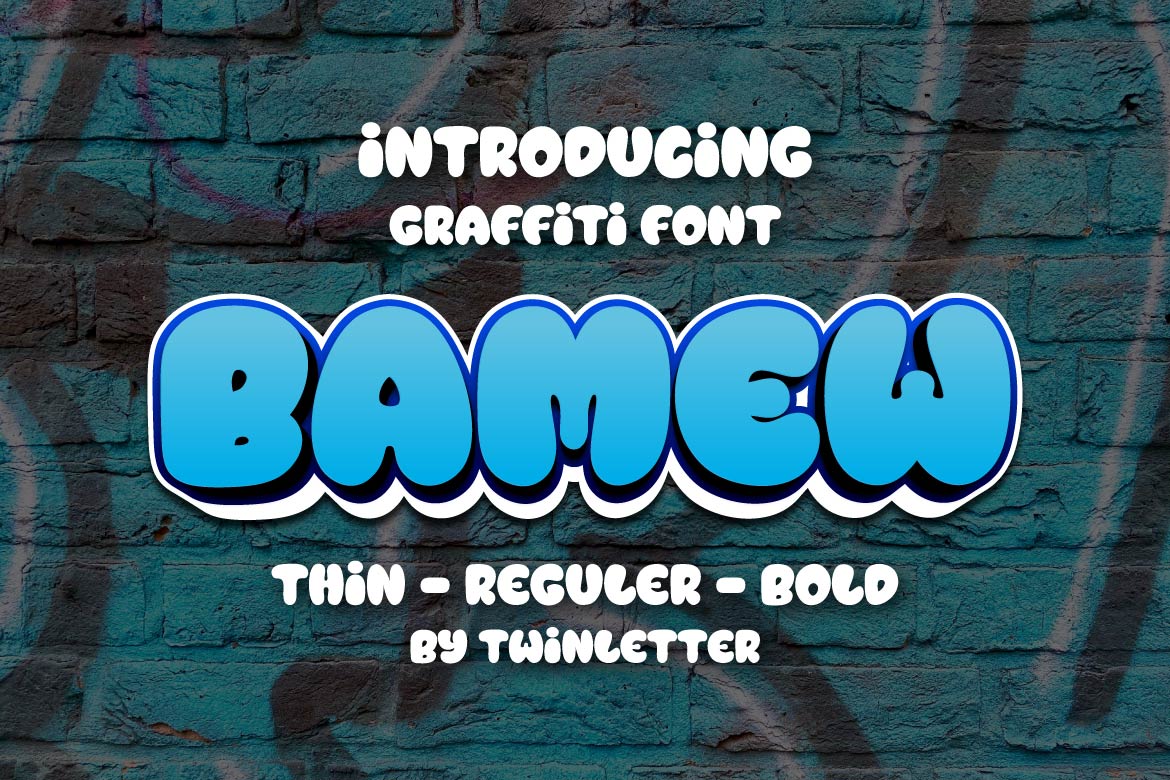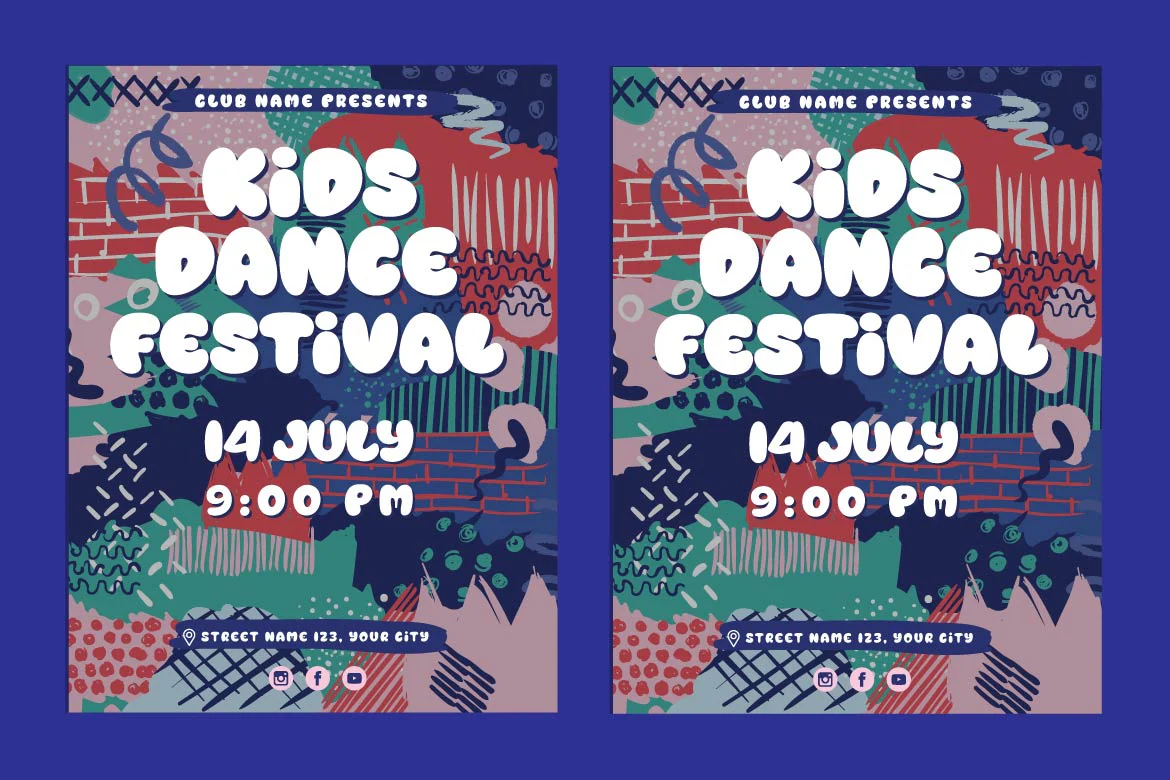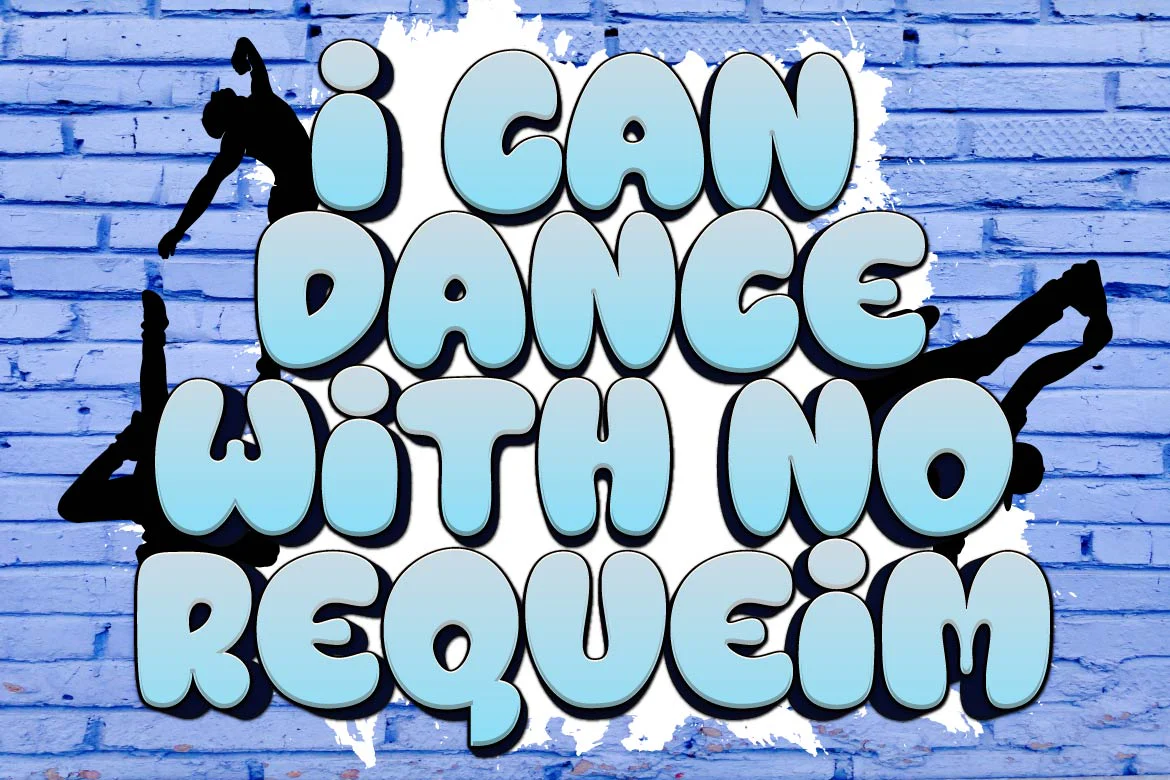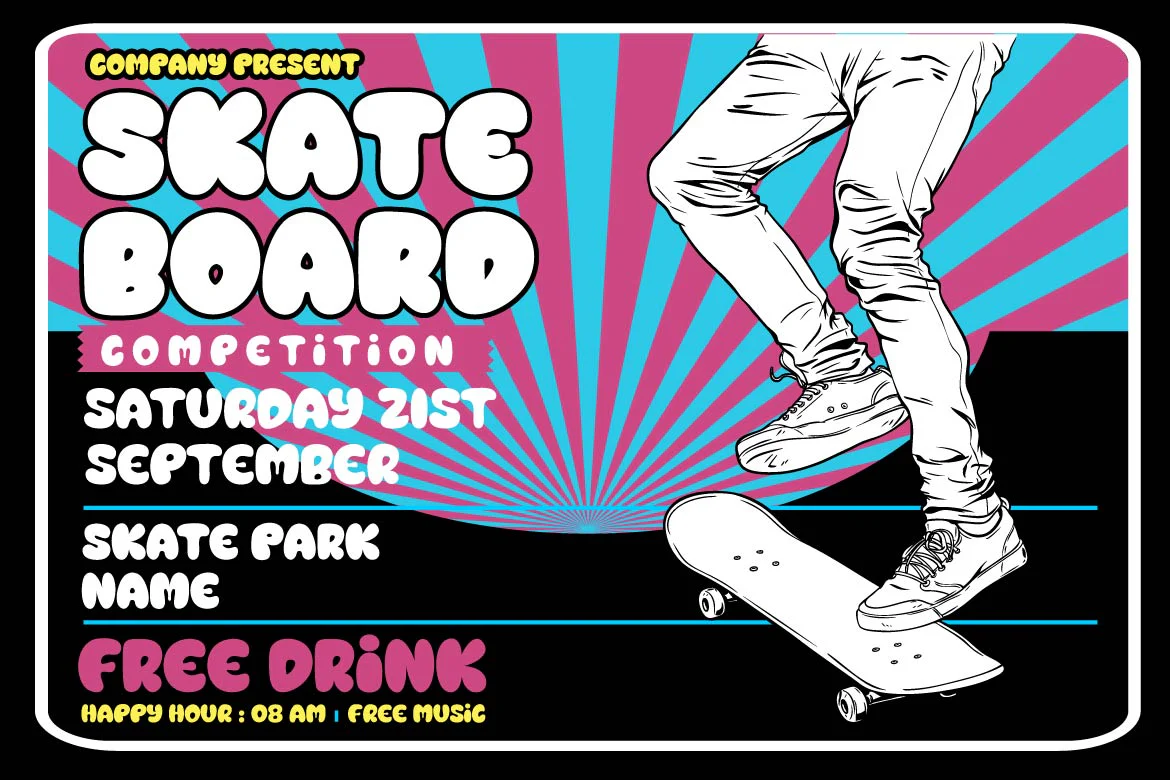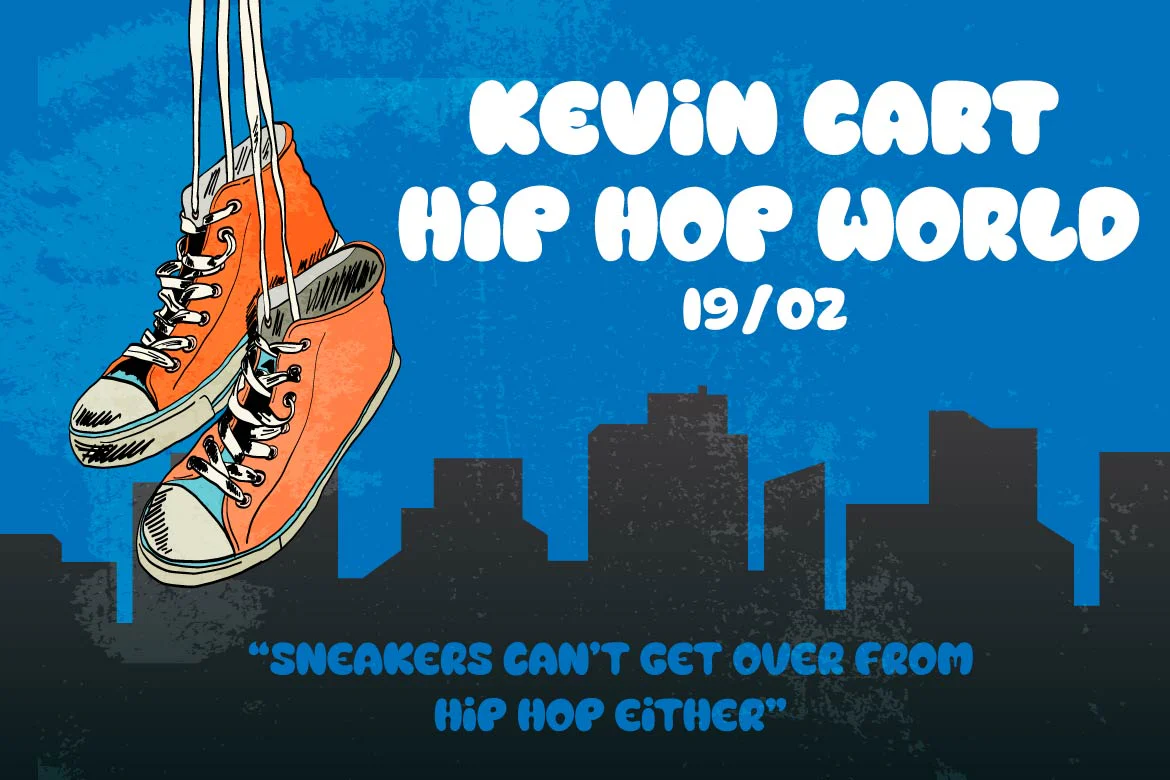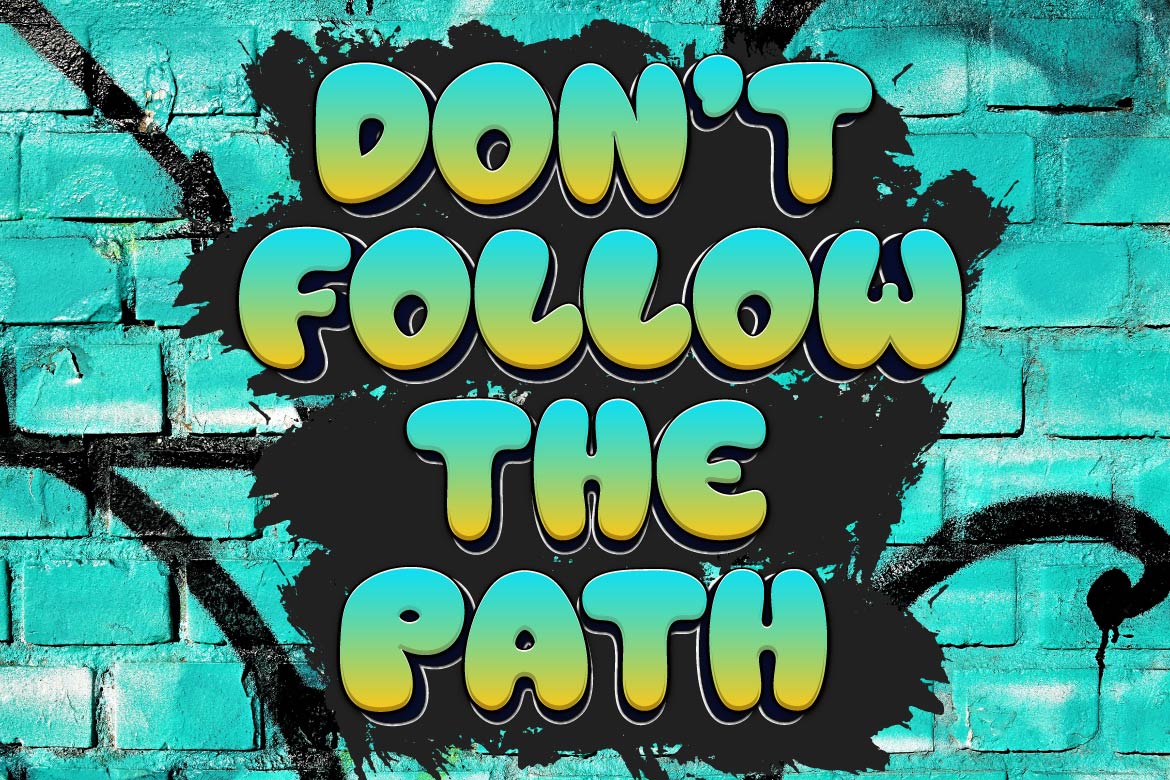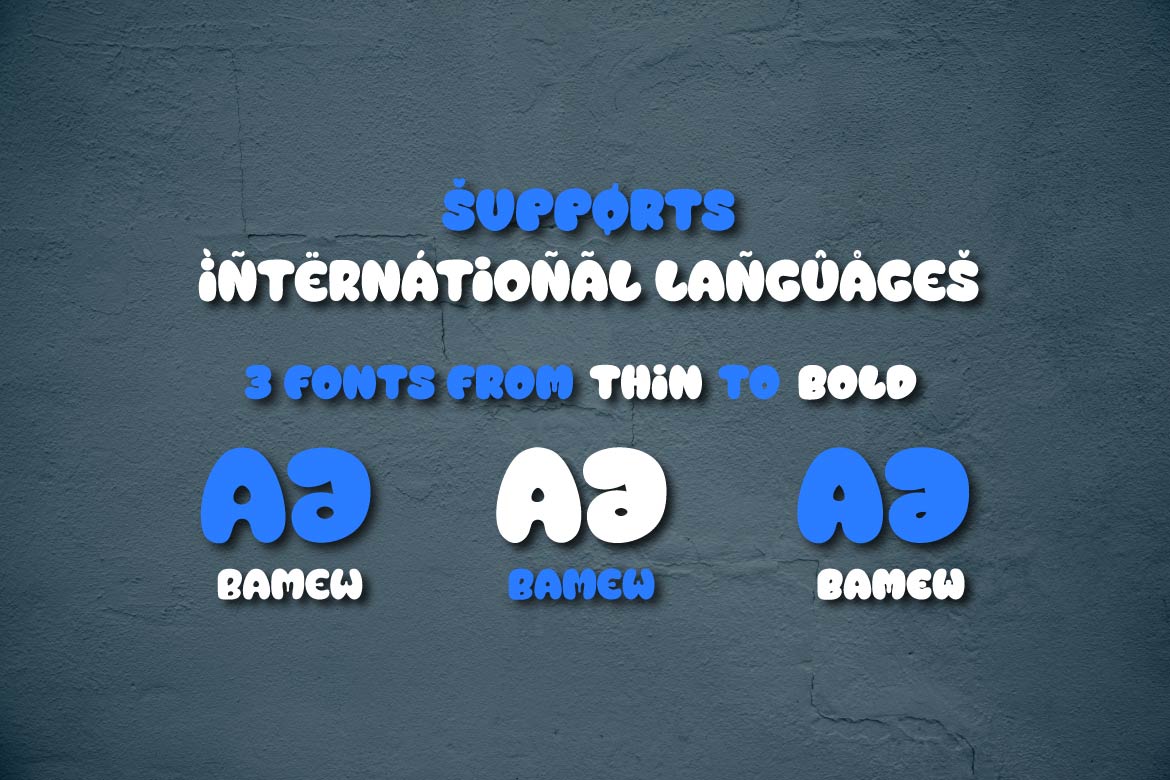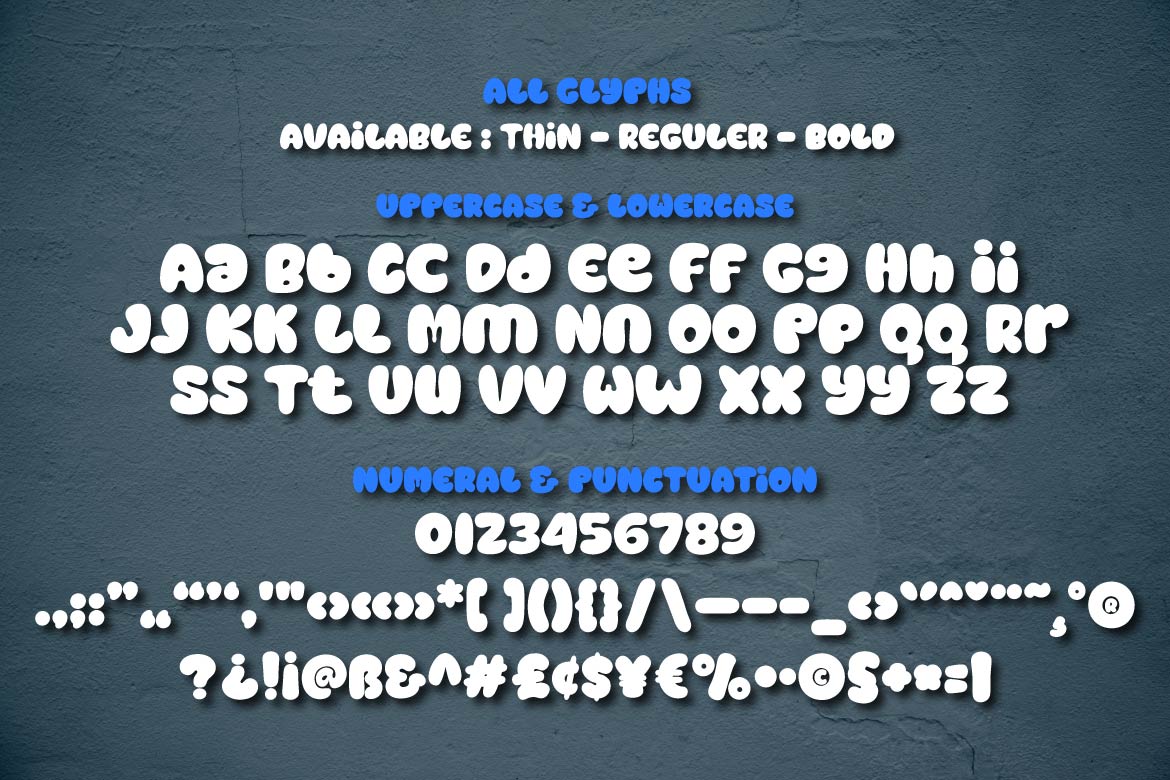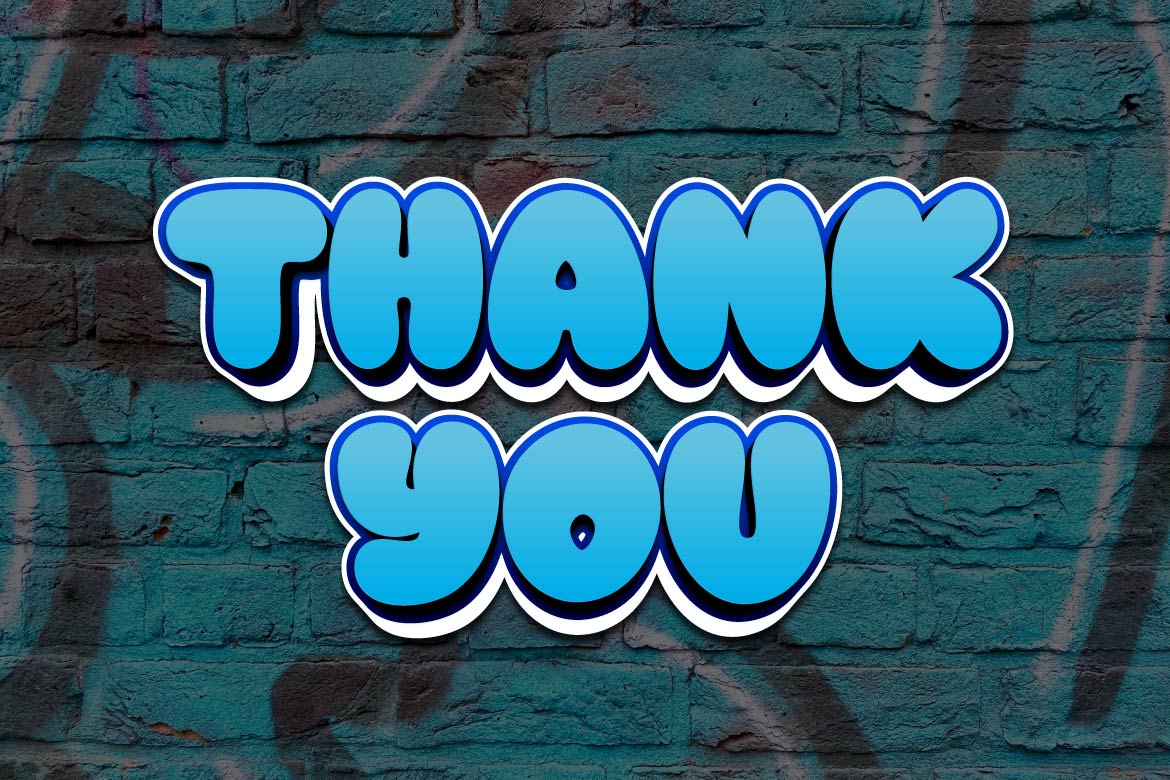
BAMEW - Display Graffiti Style Font
BAMEW is a fun and slightly dirty graffiti font designed by us.
We put a lot of thought into every detail so that you may use this font in a wide range of outdoor event projects for people of all genders and ages.
If you utilize this typeface, the project you’re working on will be harmonious and harmonious, making it amazing for everyone who sees it. Use this font right now for that.
This graffiti font is great for product logos, poster titles, headlines, packaging, film titles, logotypes, gorgeous writing, and trendy graffiti designs, among other things.
Of course, if you utilize this font in your numerous creative projects, they will be perfect and outstanding.
Use this typeface right away for your one-of-a-kind and remarkable projects.
BAMEW is a fun and slightly dirty graffiti font designed by us.
We put a lot of thought into every detail so that you may use this font in a wide range of outdoor event projects for people of all genders and ages.
If you utilize this typeface, the project you’re working on will be harmonious and harmonious, making it amazing for everyone who sees it. Use this font right now for that.
This graffiti font is great for product logos, poster titles, headlines, packaging, film titles, logotypes, gorgeous writing, and trendy graffiti designs, among other things.
Of course, if you utilize this font in your numerous creative projects, they will be perfect and outstanding.
Use this typeface right away for your one-of-a-kind and remarkable projects.